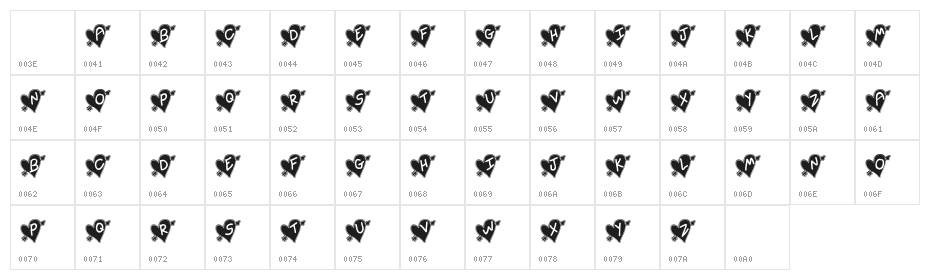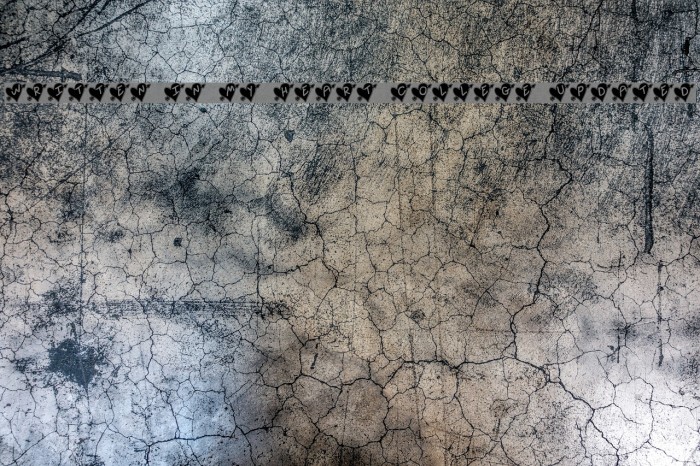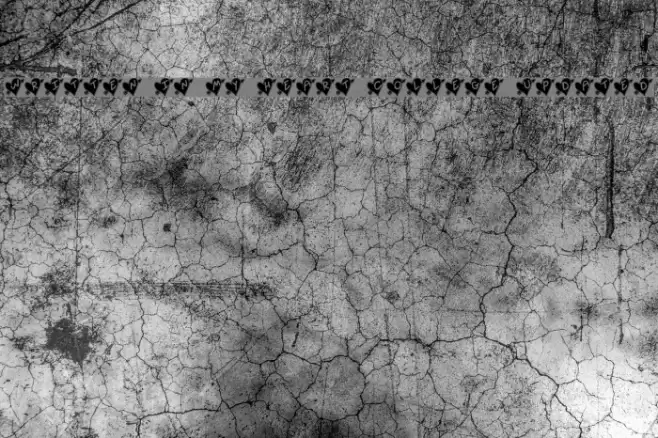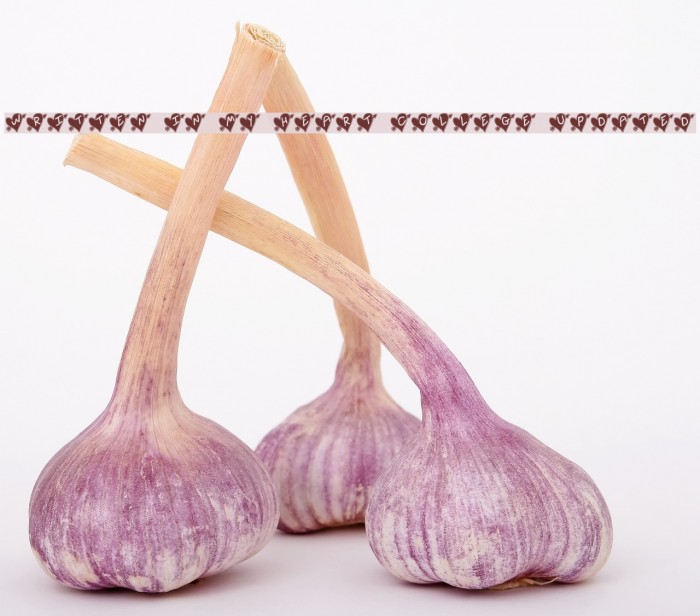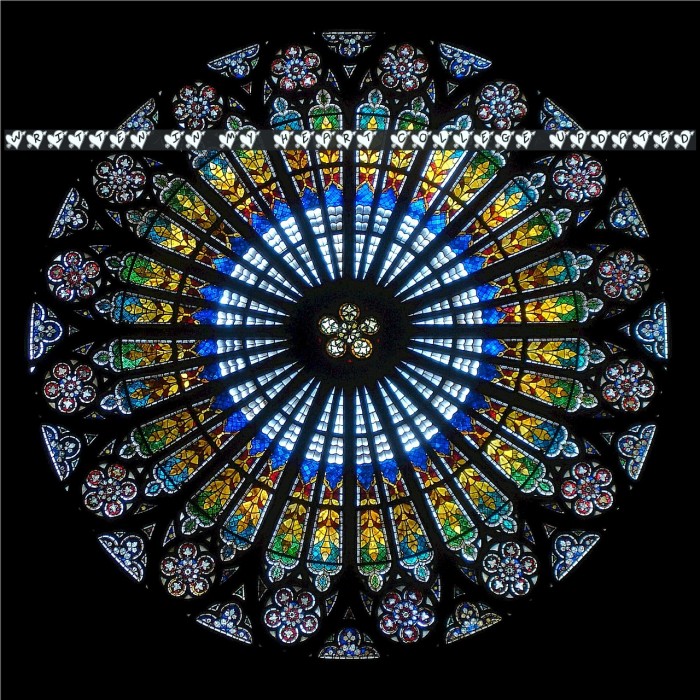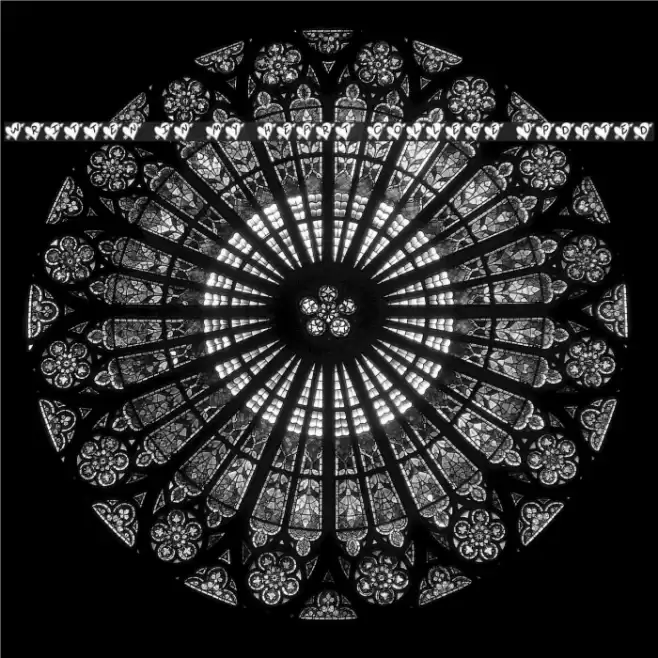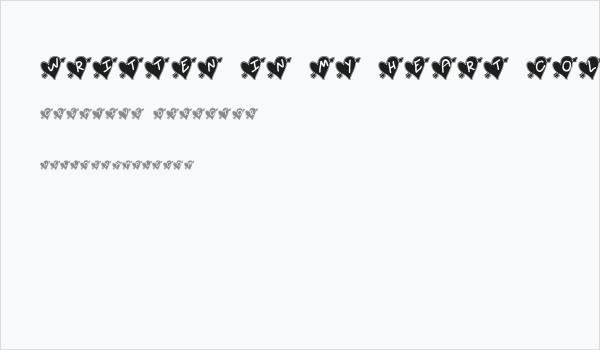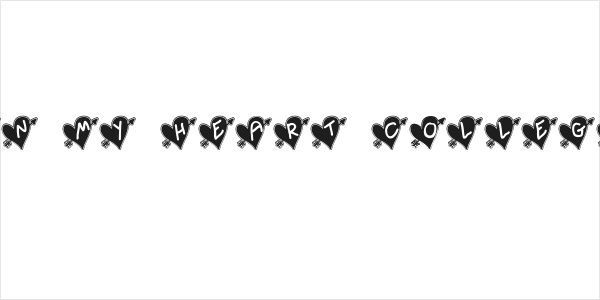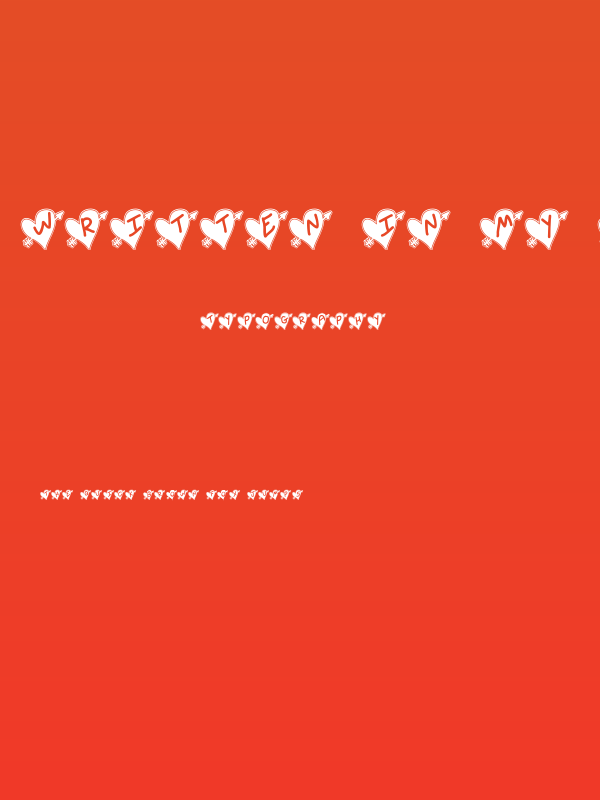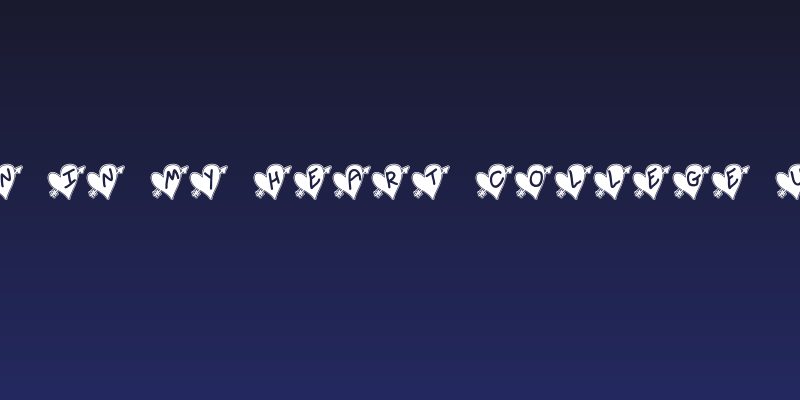
Written In My Heart College Updated Font
Written In My Heart College Updated Description
This decorative font features each letter encased within a heart shape, complete with an arrow piercing through, creating a playful and romantic aesthetic. The letters are bold and white, contrasting sharply against the black heart background, making them stand out prominently. This design is whimsical and eye-catching, perfect for projects that require a touch of charm and creativity. The font's unique style makes it ideal for themed events, greeting cards, or any design that aims to convey love and affection. The consistent use of heart shapes across all characters ensures a cohesive look, while the bold lettering ensures readability.
| Use Case | Logos, Headlines, Greeting Cards |
| Proposed Projects | Ideal for Valentine's Day cards, wedding invitations, romantic event posters, and playful branding. |